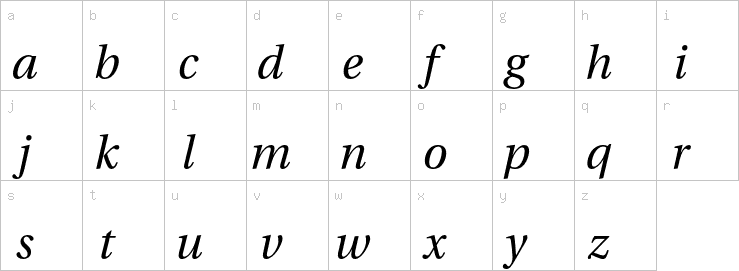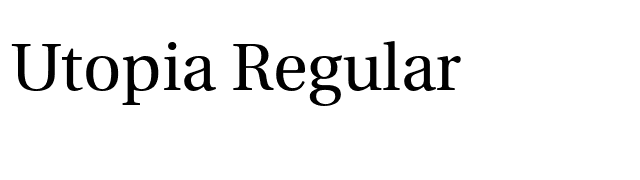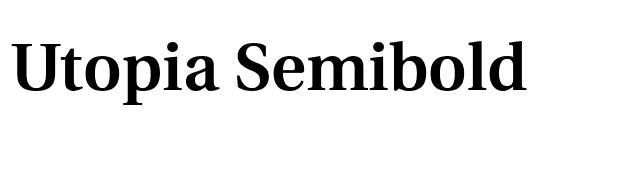
Utopia font free download mac. It combines the vertical stress and pronounced stroke contrast of eighteenth century transitional types like baskerville and walbaum with contemporary innovations in character shapes and stroke details. Utopia regular viewed 43998 times so far. Mac font book app.
About this font family utopia is an adobe originals text face designed by robert slimbach in 1989. Sign in need helpsupport 0 your cartempty all all desktop digital ad ebook app server web articles browse. Utopia semibold italic viewed 2977 times so far.